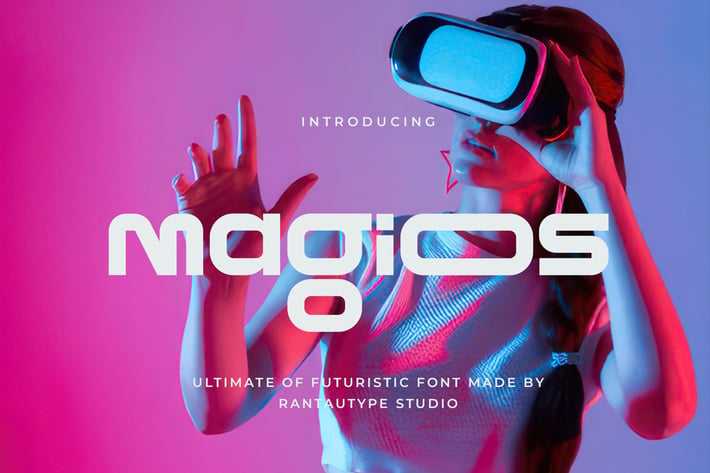
Magios Ultimate Futuristic Font
Magios is ultimate of futuristic font inspire by tool called virtual reality. This font take a technology visual design concept with rounded shape in some part make it elegant and minimalist. We love how ligature CO and OO look it modern and high tech. Magios come to support you to make design project about technology more stand out.
Magios is a perfectly choice for any creative endeavor, chic, lifestyle design such as logos, advertisements, stationery, branding project, display and magazine, invitation, corporate brand, product design, label, business project and many other project with technology touch.
Alternate and Ligature